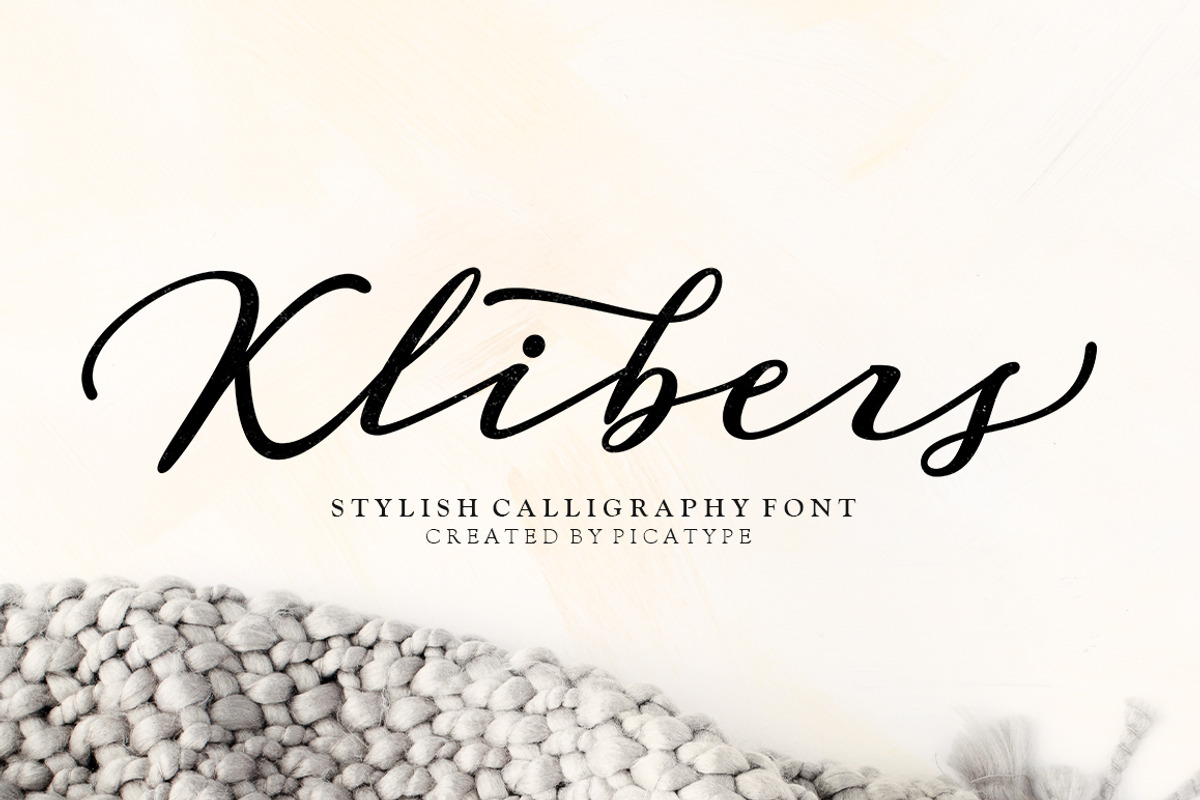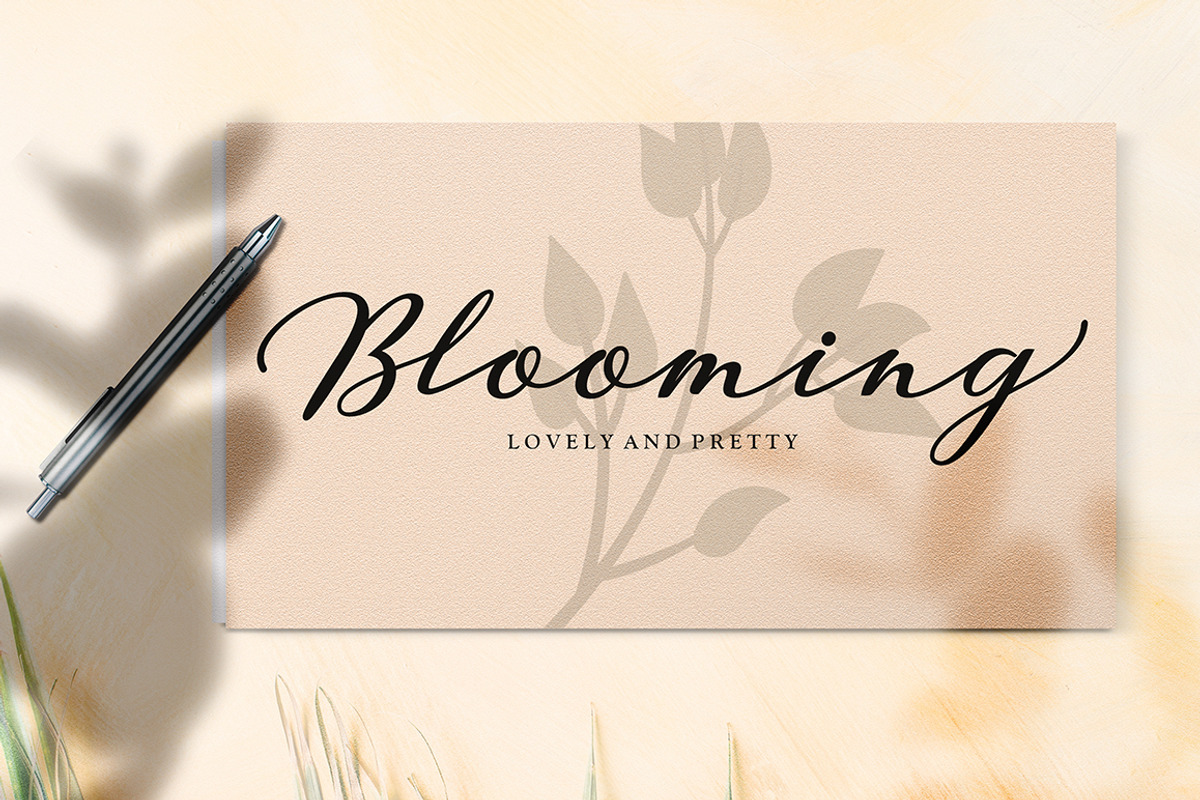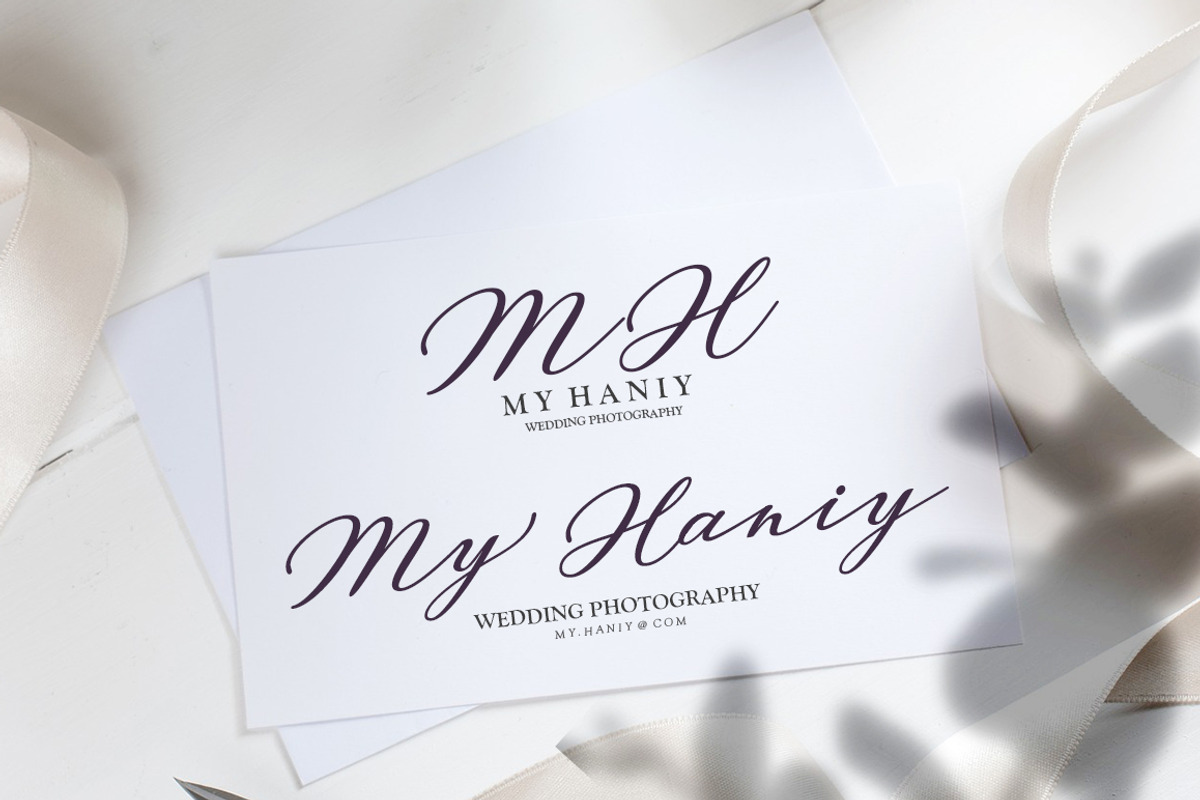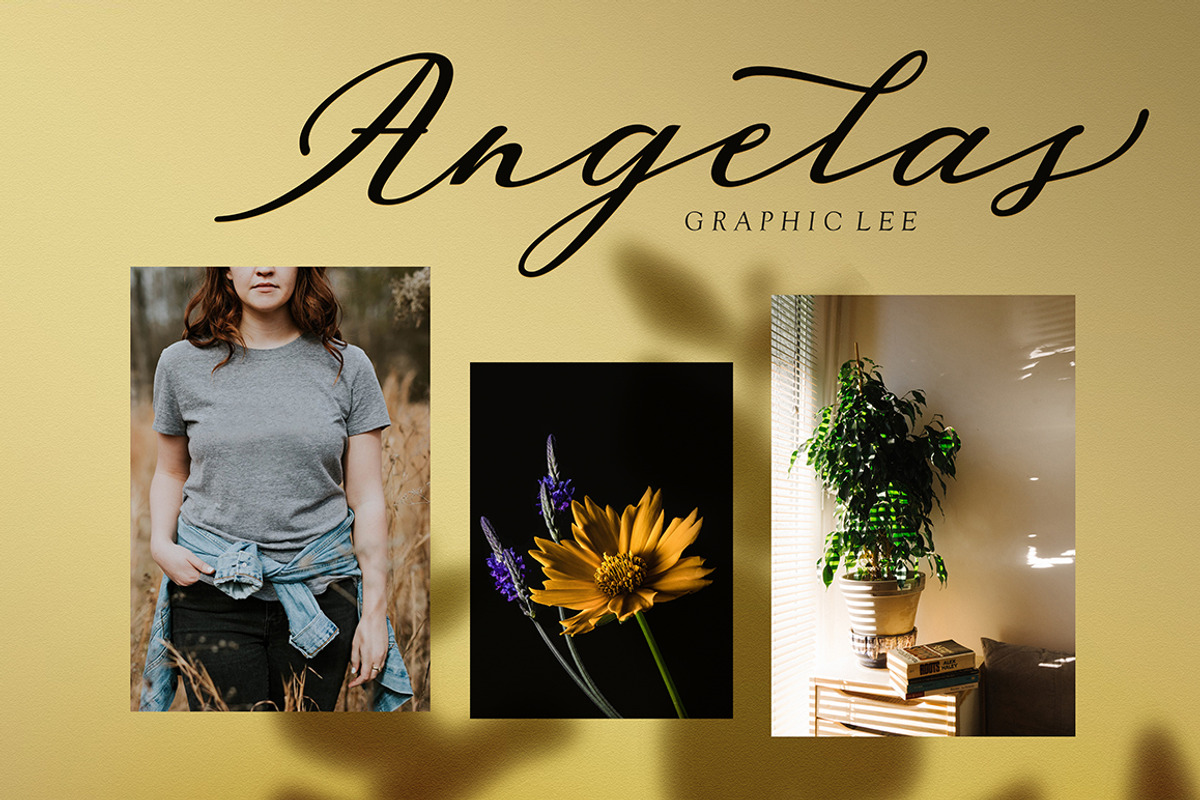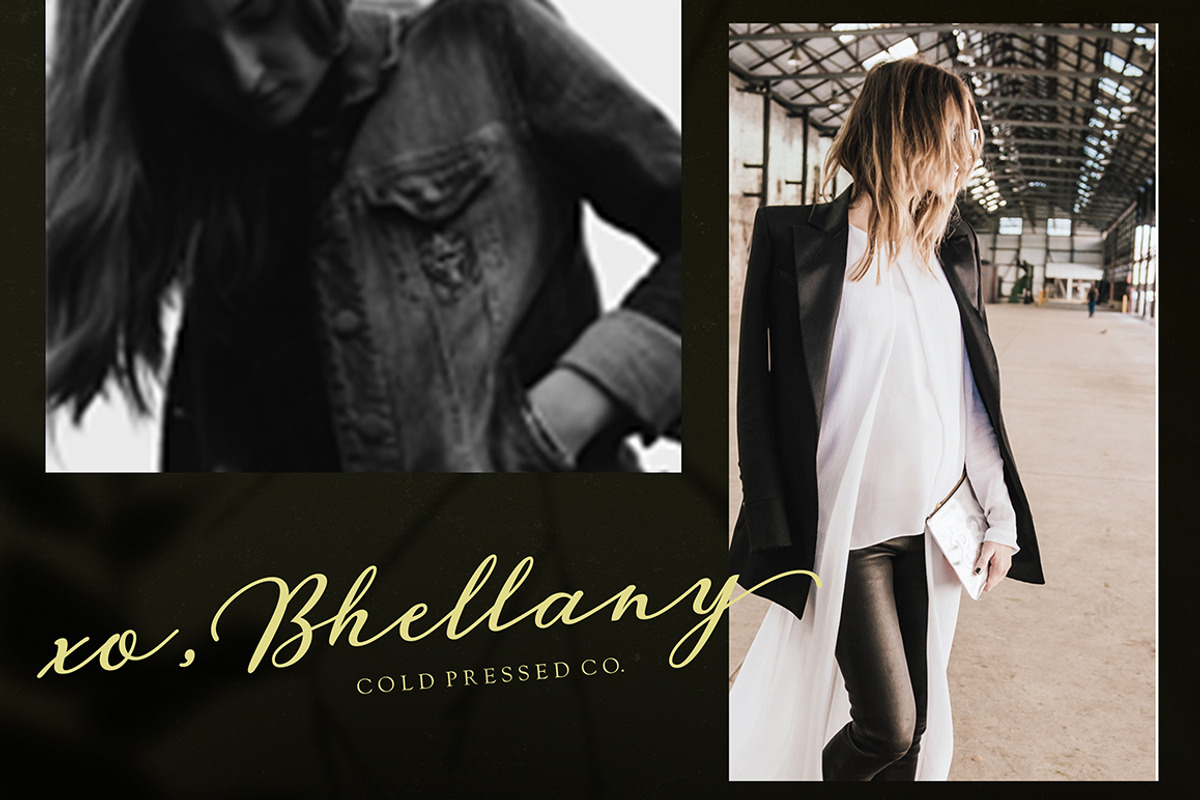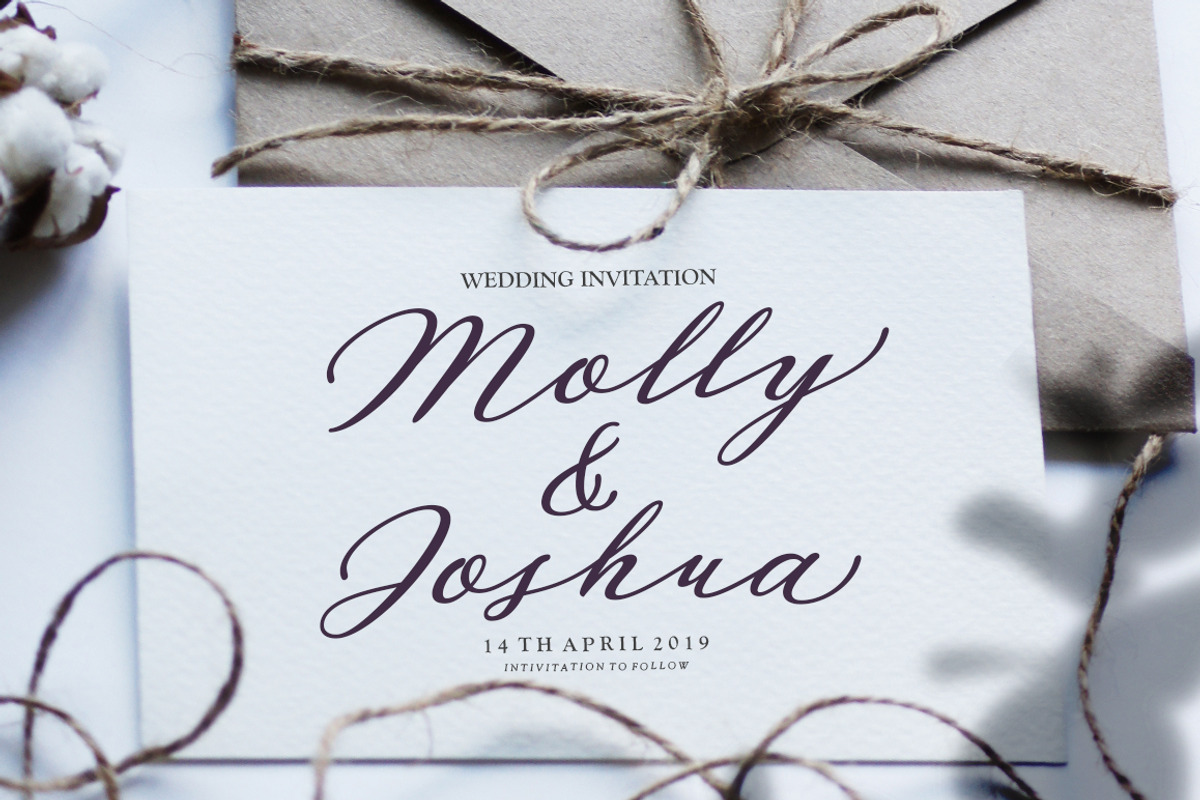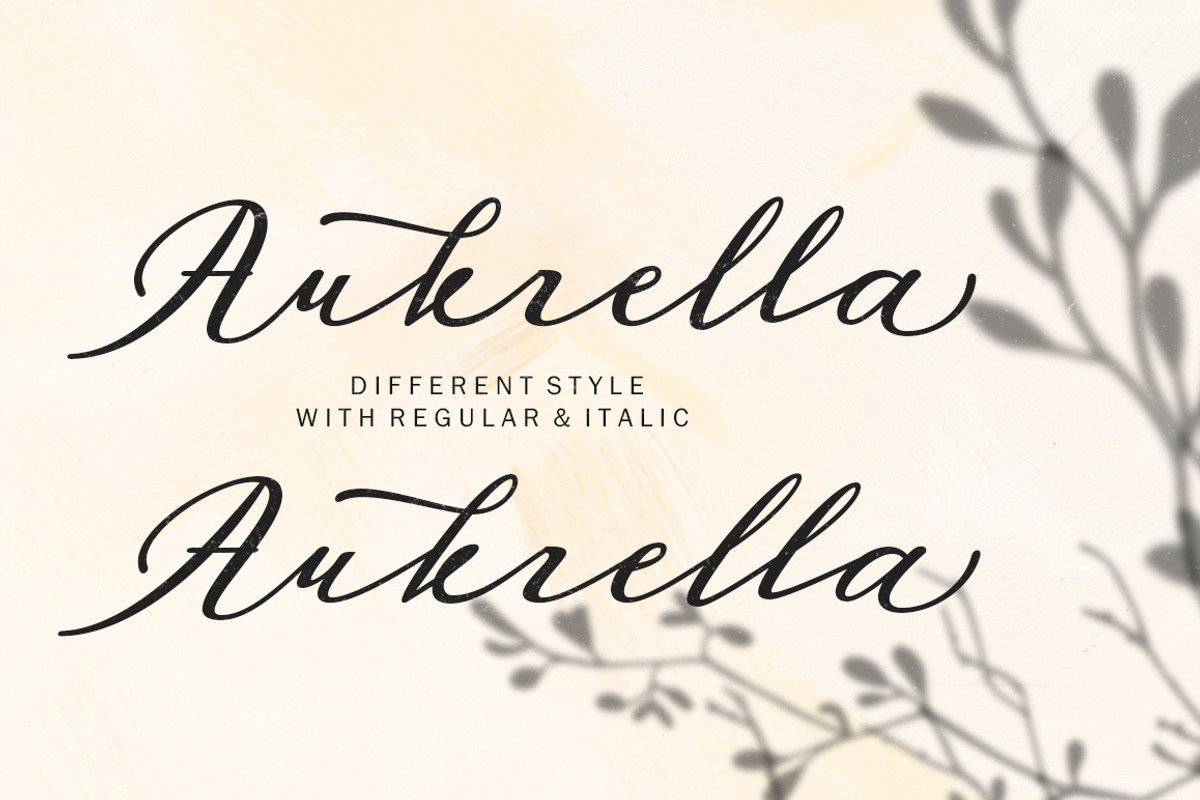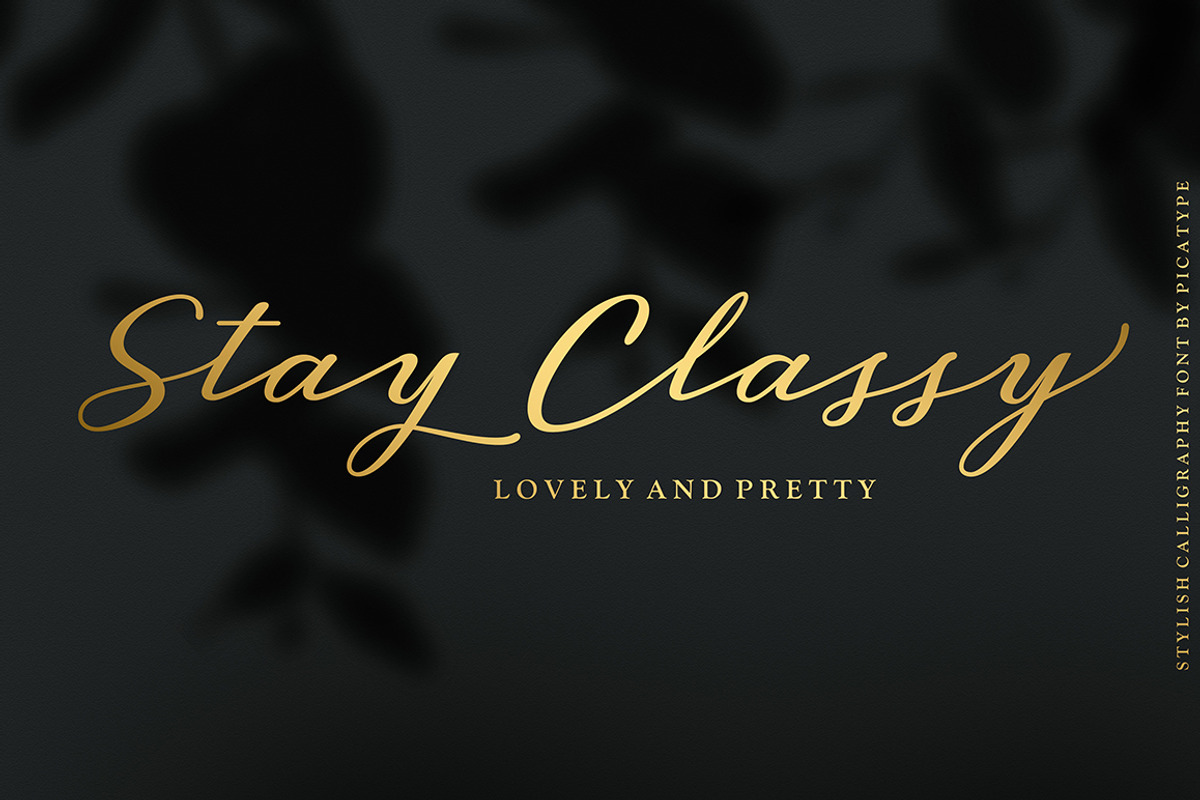
Klibers Script
Introducing Klibers Script!
A new modern calligraphy font that features a varying baseline, smooth line, classic and elegant touch. Klibers Script features 350+ glyphs and 107 alternate characters. It comes with a handy set of opentype stylistic, use the beautiful ligatures, alternates and swashes. You need a program that supports OpenType features such as Adobe Illustrator CS, Adobe Photoshop CC, Adobe Indesign, Microsoft Word 2010.It is perfect for logo, greetings, branding, quotes, prints, invitations and crafting. All lowercase letters include alternates, beginning & end swashes, that makes the font look fabulous!